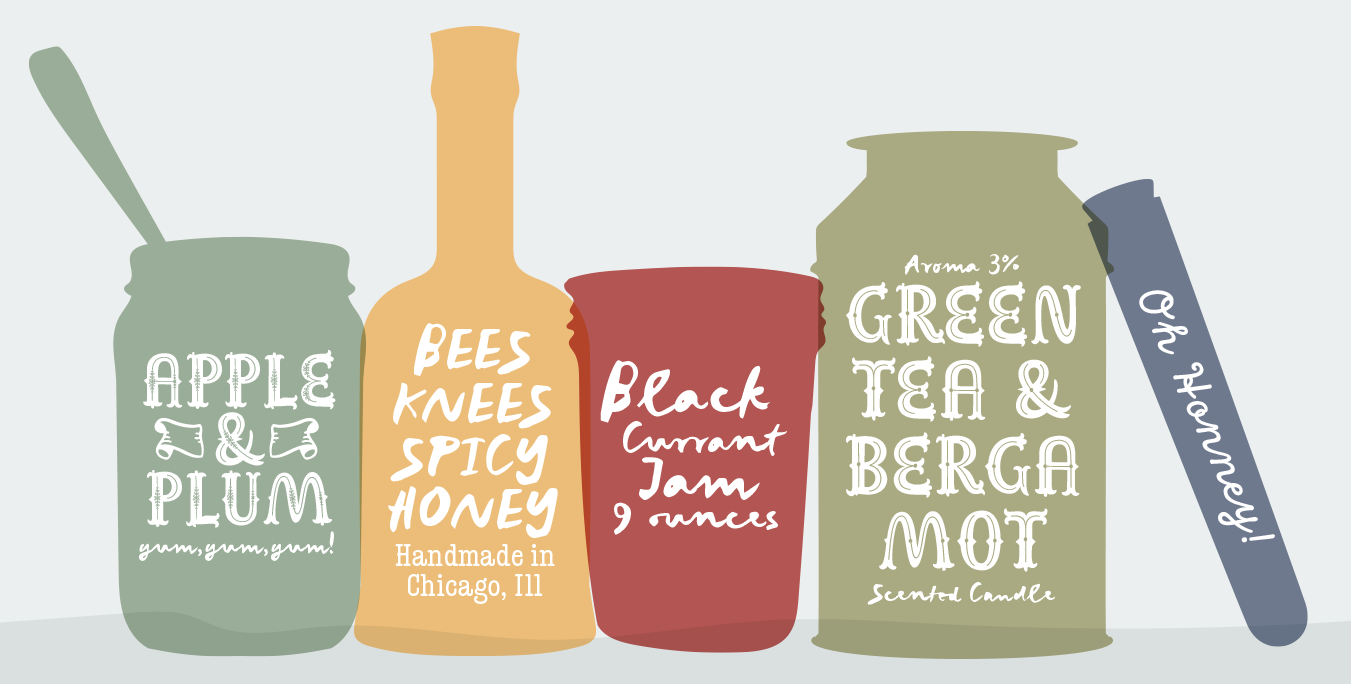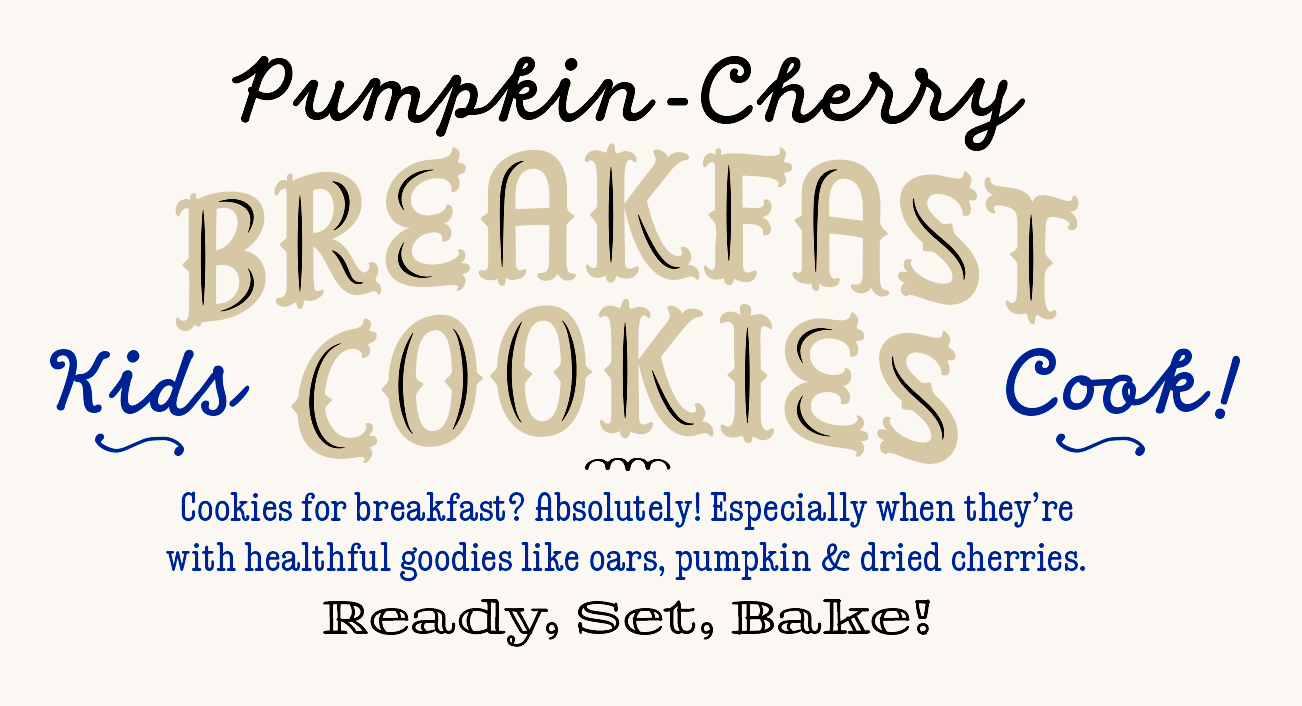
Jhony Velasco
Cali, Colombia-based co-designer with Felipe Calderon of Sussan (2019), a handlettered typeface family. Jhony was in charge of the funny children's book illustration font Sussan Extras that is included in the package.
In 2020, Felipe Calderon and Jhony Velasco co-designed the compressed typeface Compilation Grotesk.